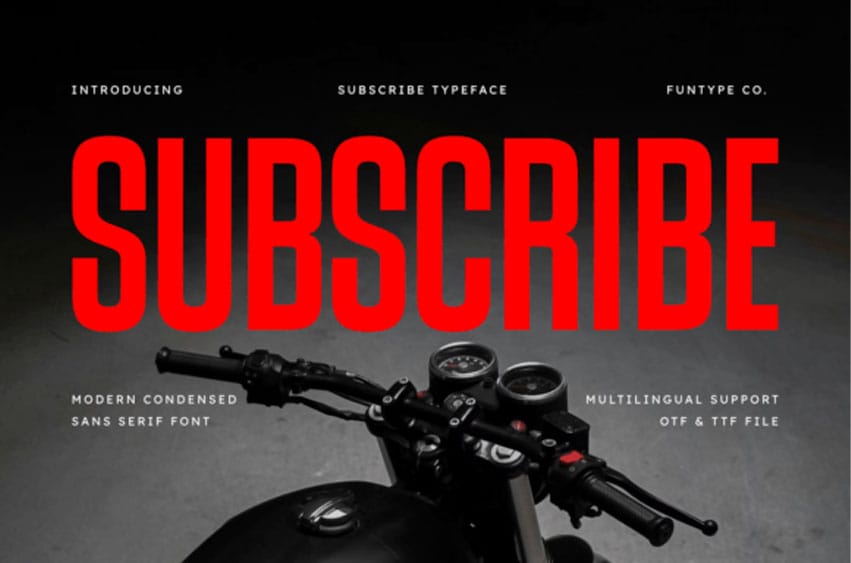
Subscribe Font is a bold, high-impact modern condensed sans serif font designed for maximum visibility and a clean, contemporary aesthetic. Its solid, narrow letterforms and powerful structure make it an exceptional choice for dominant headlines, professional branding, social media graphics, and large-scale poster designs.
This versatile typeface ensures your message is delivered with confidence and clarity, providing a sleek yet authoritative look that is perfect for any modern creative project across digital and print media.For Commercial Licence Click Here